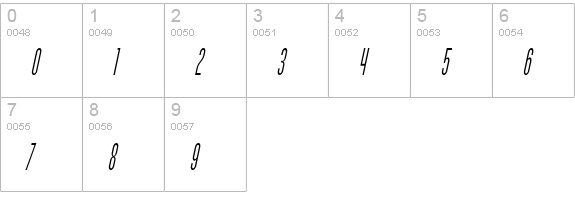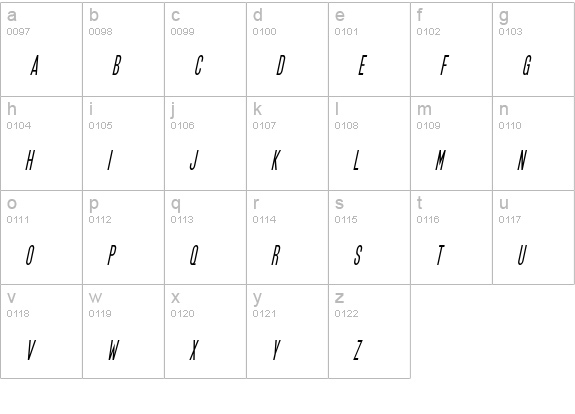
SF Movie Poster Condensed Oblique Font Details
SF Movie Poster Condensed Oblique is a distinctive, condensed-width, italic variant in the SF typeface family \xE2\x80\x94 well suited to design and typography projects.
Introducing SF Movie Poster Condensed Oblique, a captivating and futuristic font that brings the essence of science fiction to life. This font is designed to evoke a sense of adventure, mystery, and excitement, making it the perfect choice for any project that needs a touch of otherworldliness. With its bold and slanted letterforms, SF Movie Poster Condensed Oblique commands attention and adds a dynamic visual element to any design. Its condensed proportions allow for maximum impact, making it ideal for headlines, movie posters, book covers, and more. Whether you're creating a poster for an intergalactic adventure or designing a website for a futuristic tech company, SF Movie Poster Condensed Oblique will effortlessly convey the desired atmosphere. One of the most enticing aspects of SF Movie Poster Condensed Oblique is that it is freely available to download at FontsMarket.com. This means that anyone can access this stunning font and use it to elevate their designs, without any restrictions or limitations. The versatility and accessibility of SF Movie Poster Condensed Oblique make it a valuable asset for designers, allowing them to unleash their creativity and bring their vision to life. So, if you're looking to add a touch of sci-fi flair to your designs, look no further than SF Movie Poster Condensed Oblique. Download it for free at FontsMarket.com and watch as your creations transcend the ordinary and transport audiences to distant galaxies and beyond. Let your imagination soar with SF Movie Poster Condensed Oblique and create designs that are out of this world.